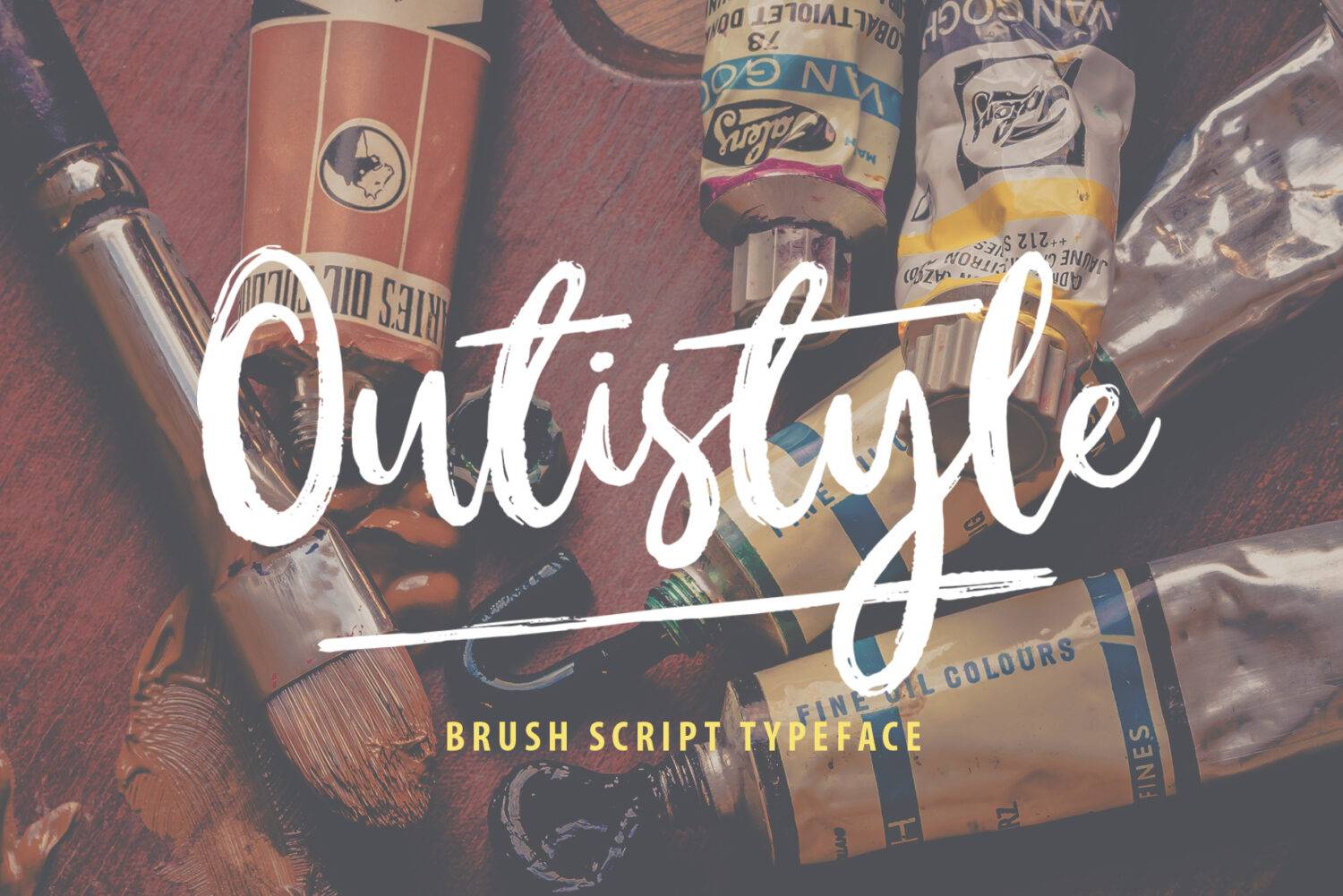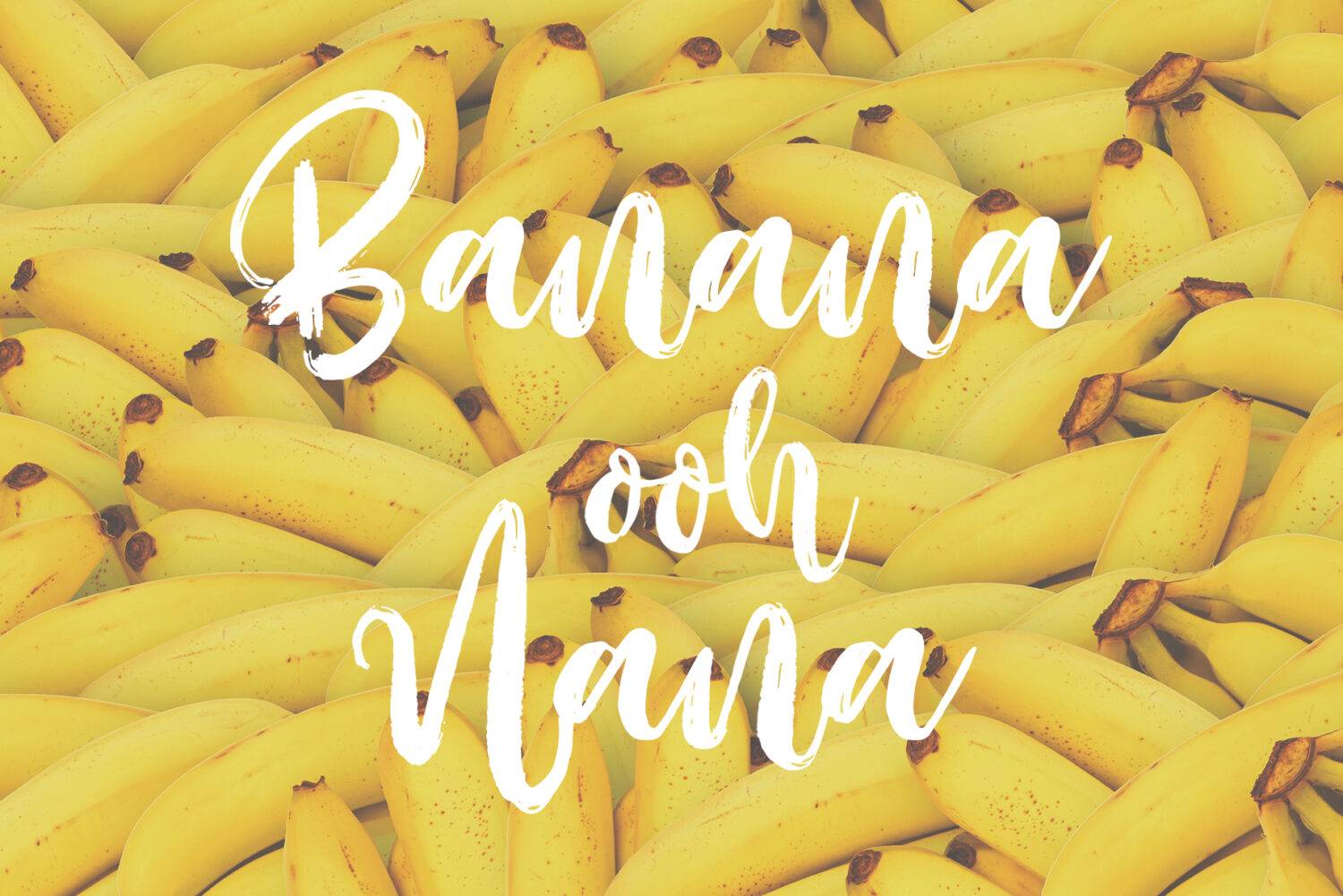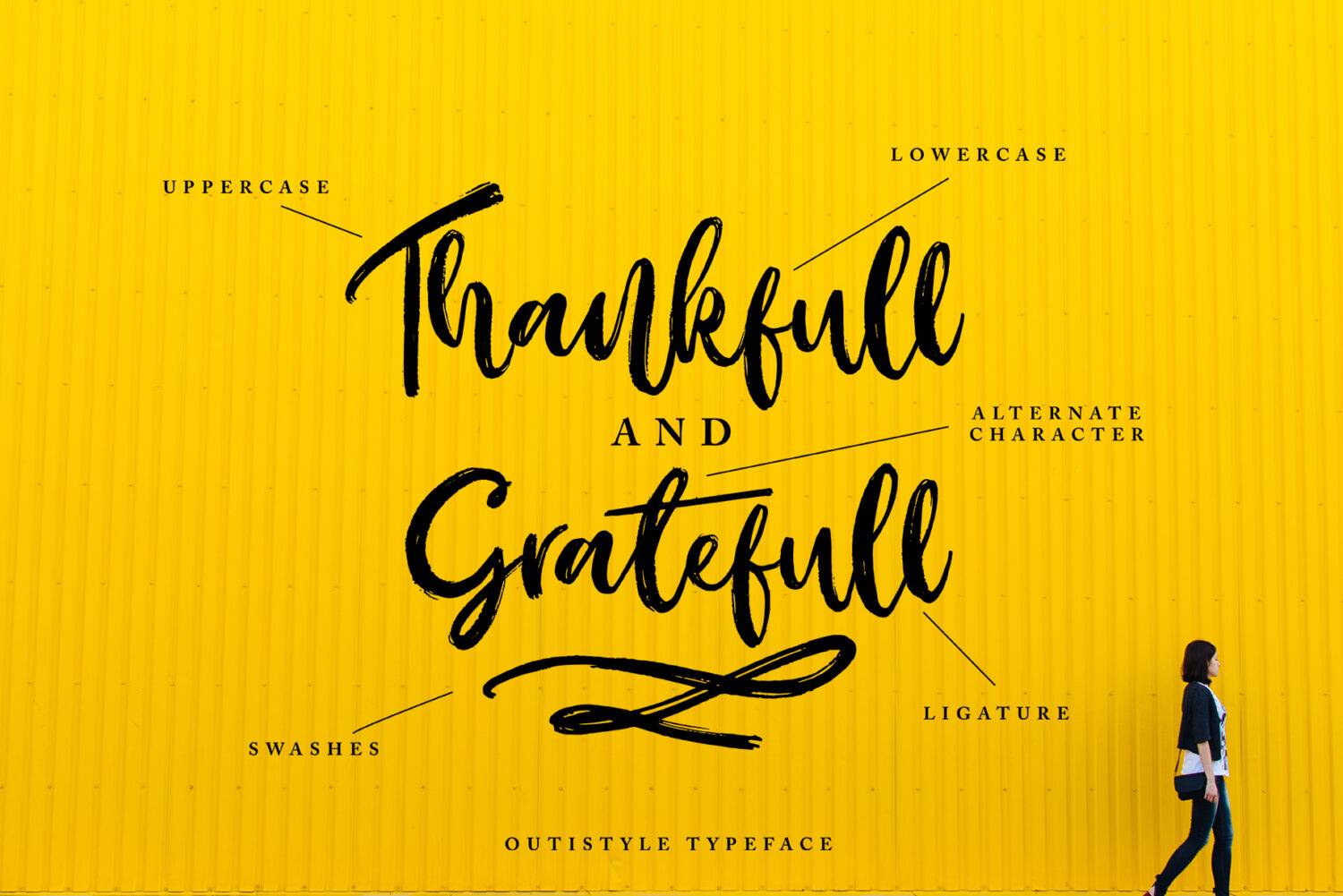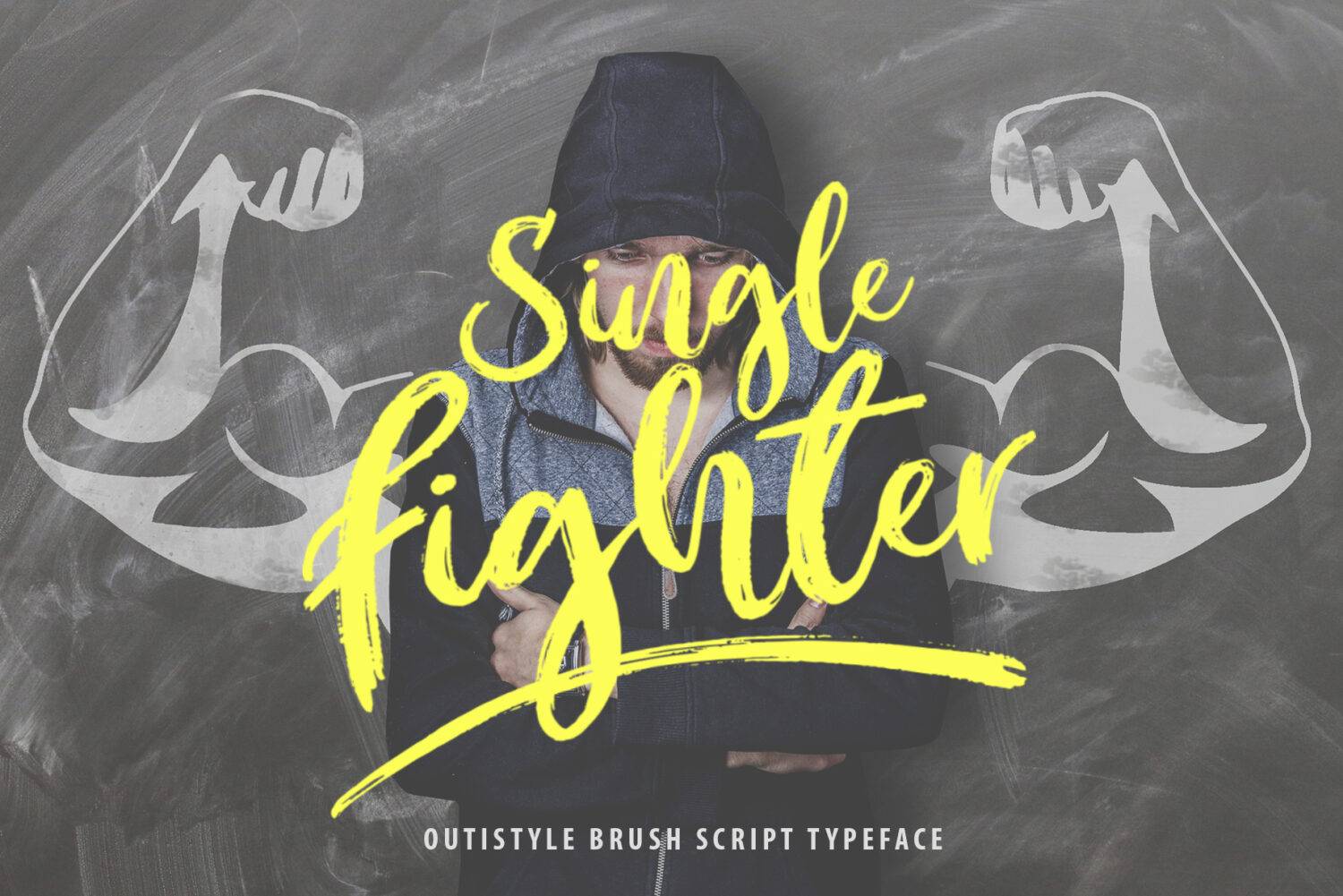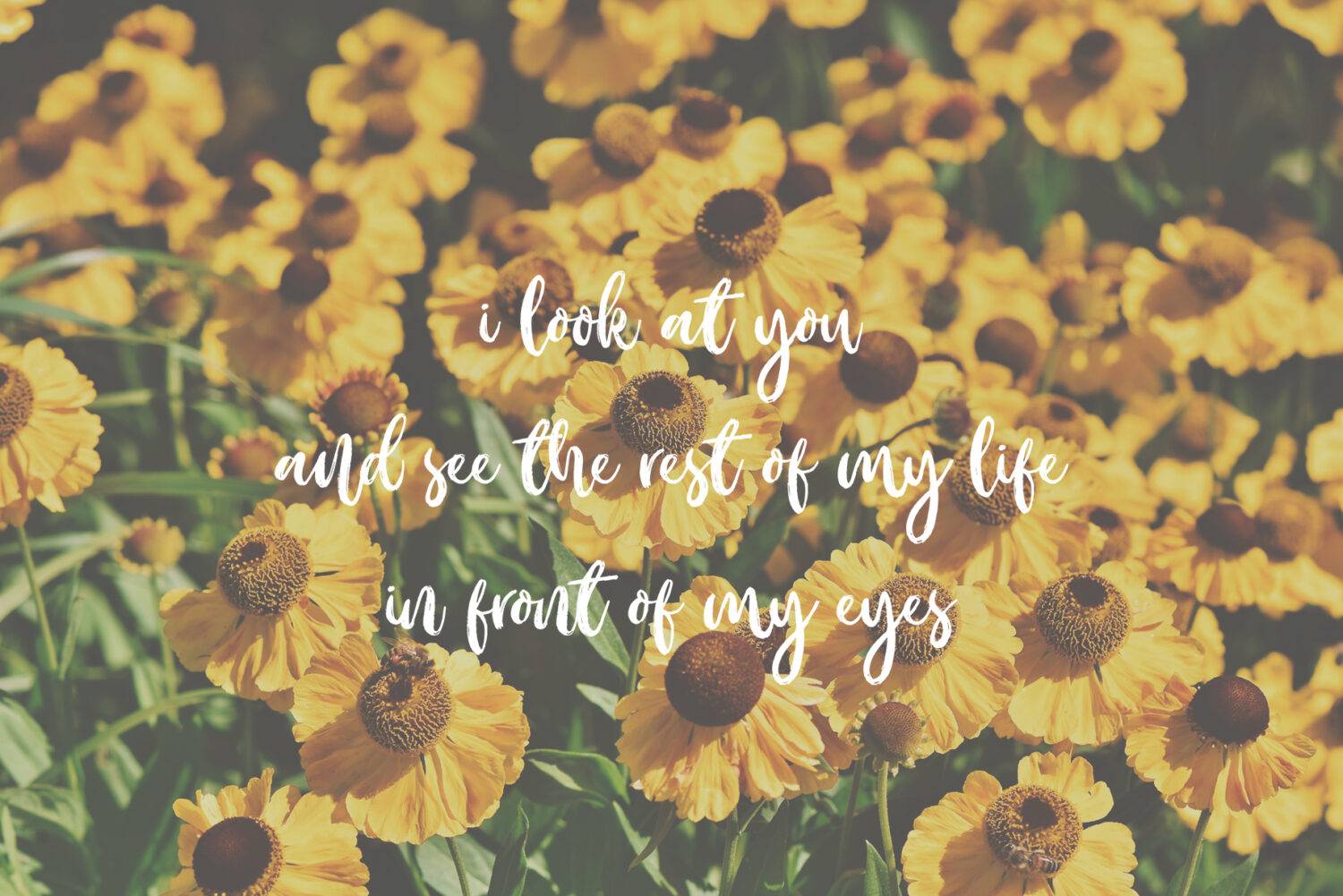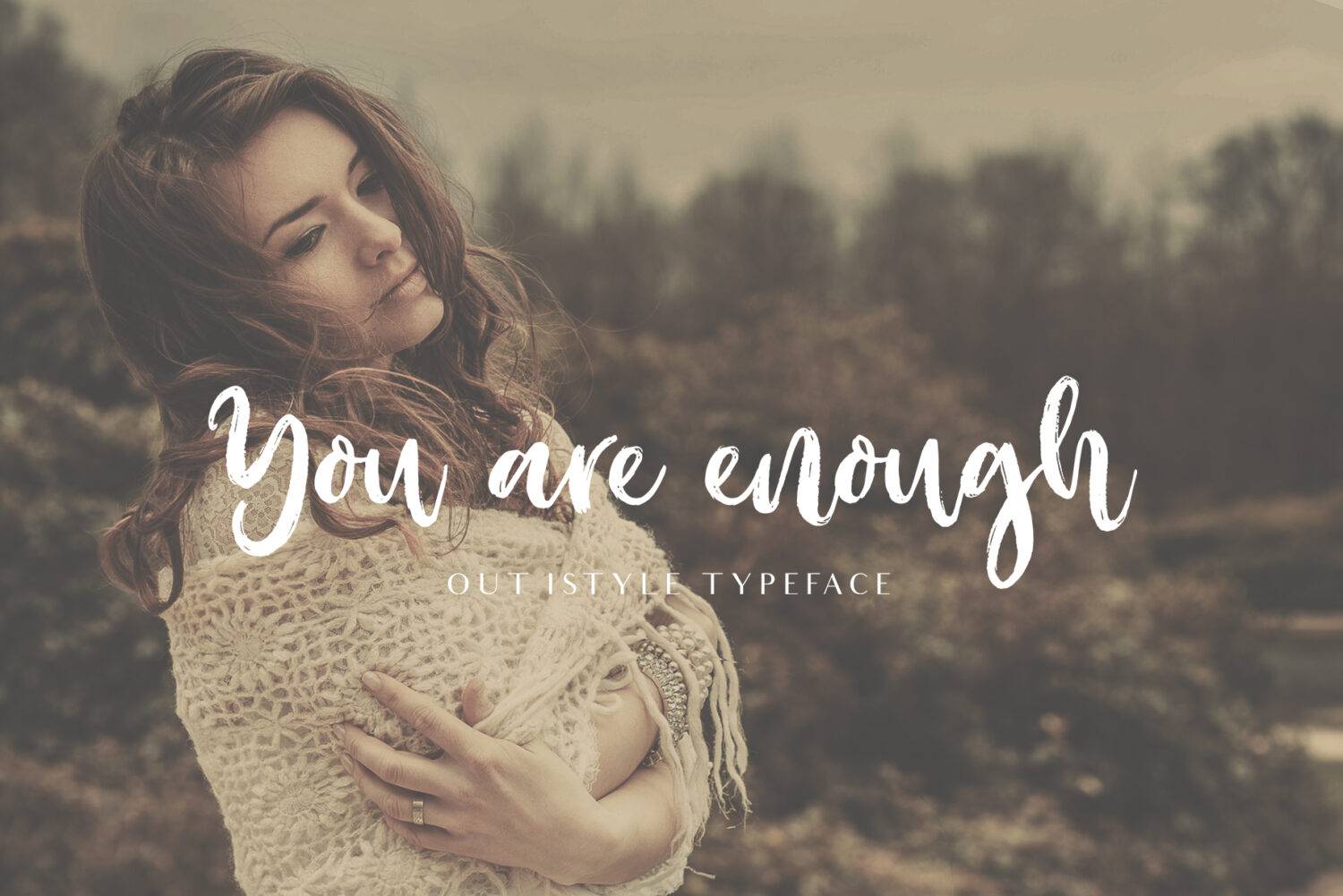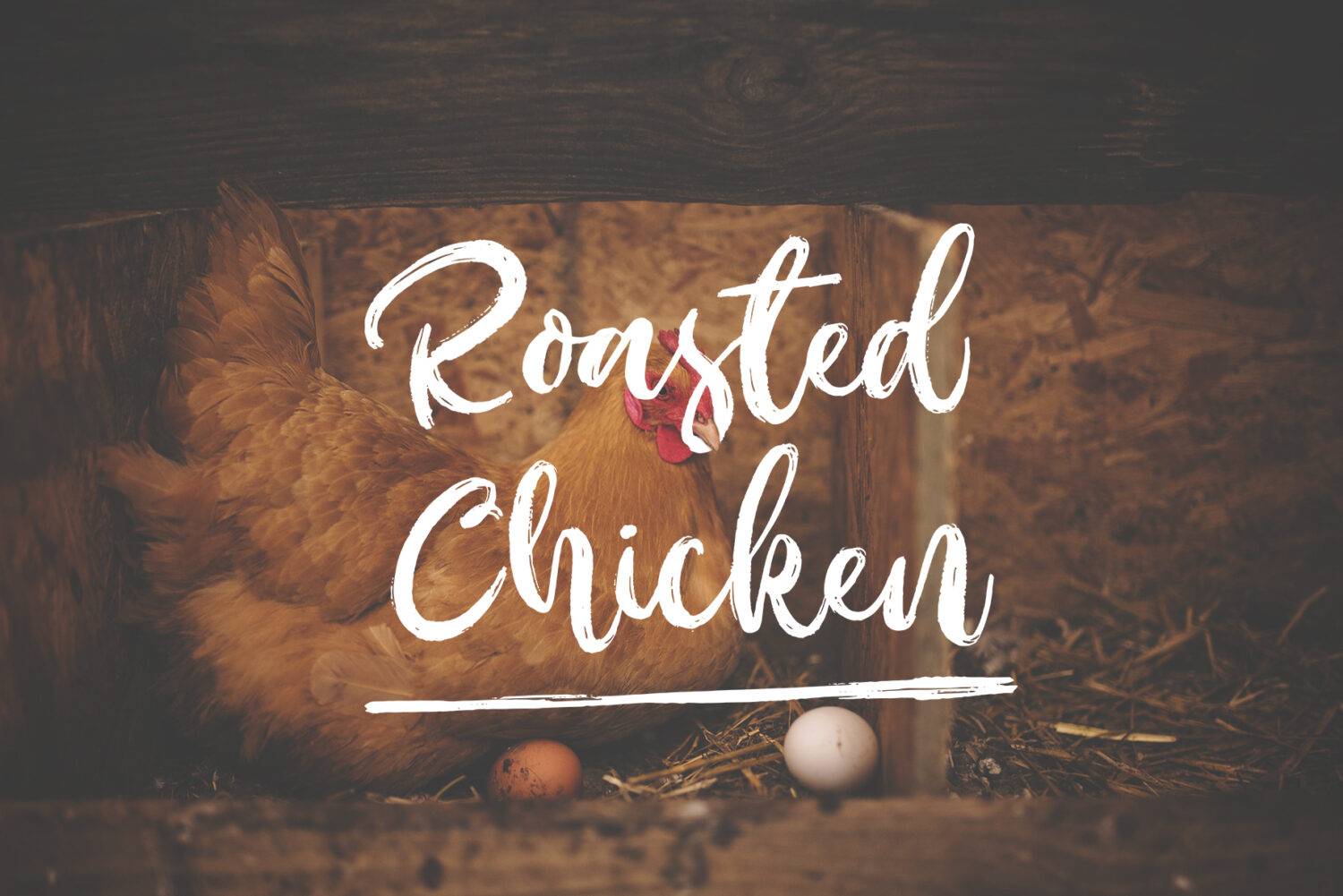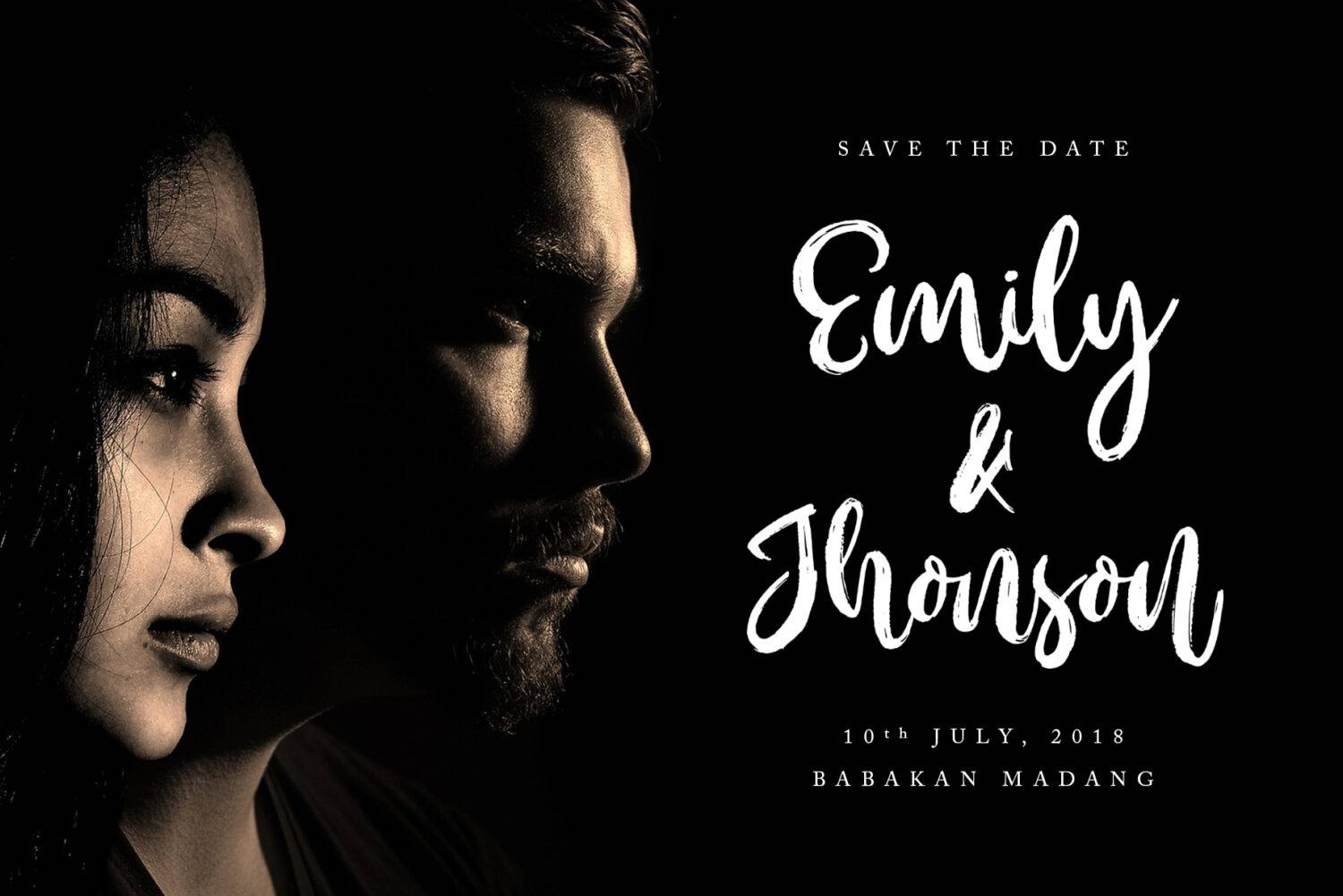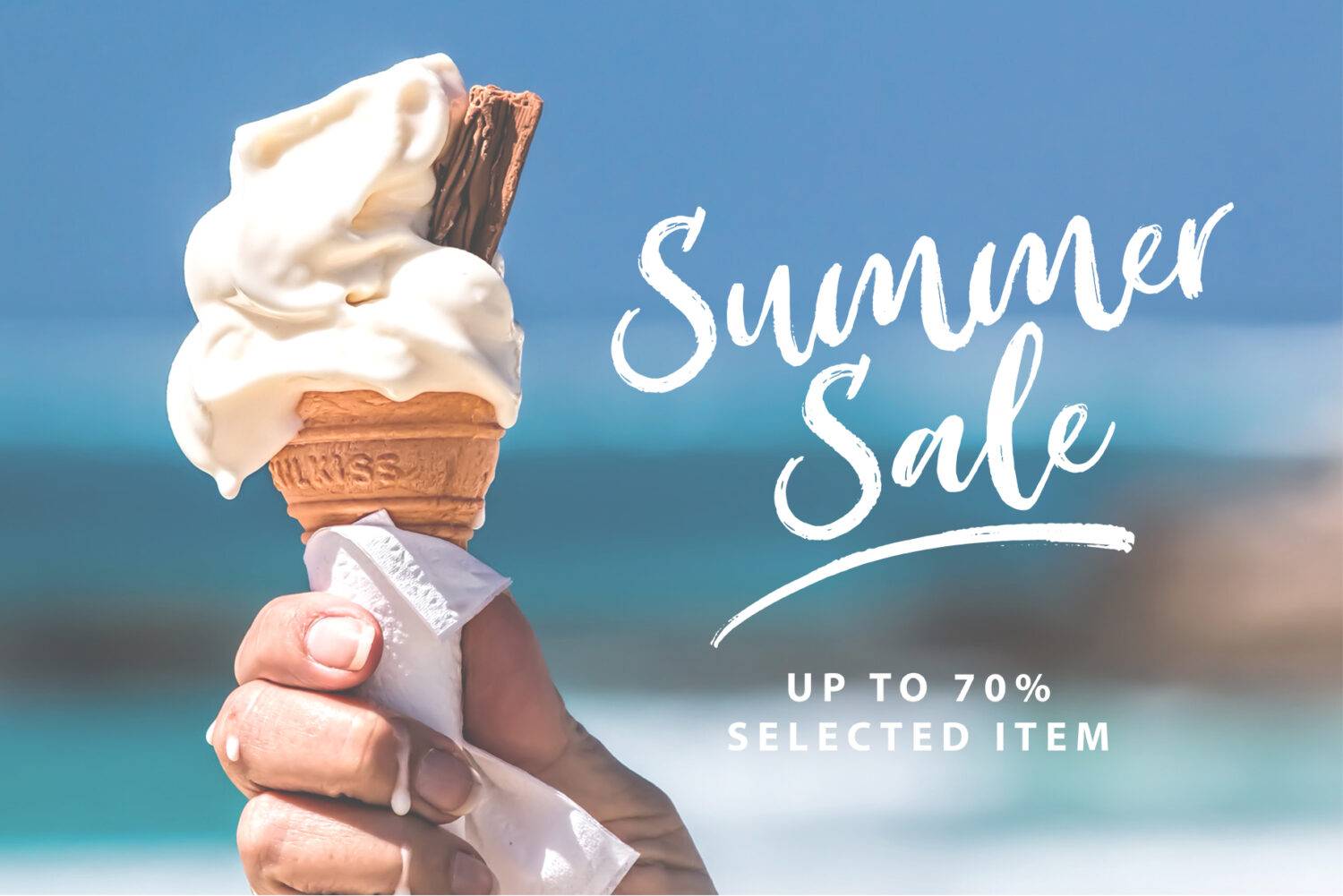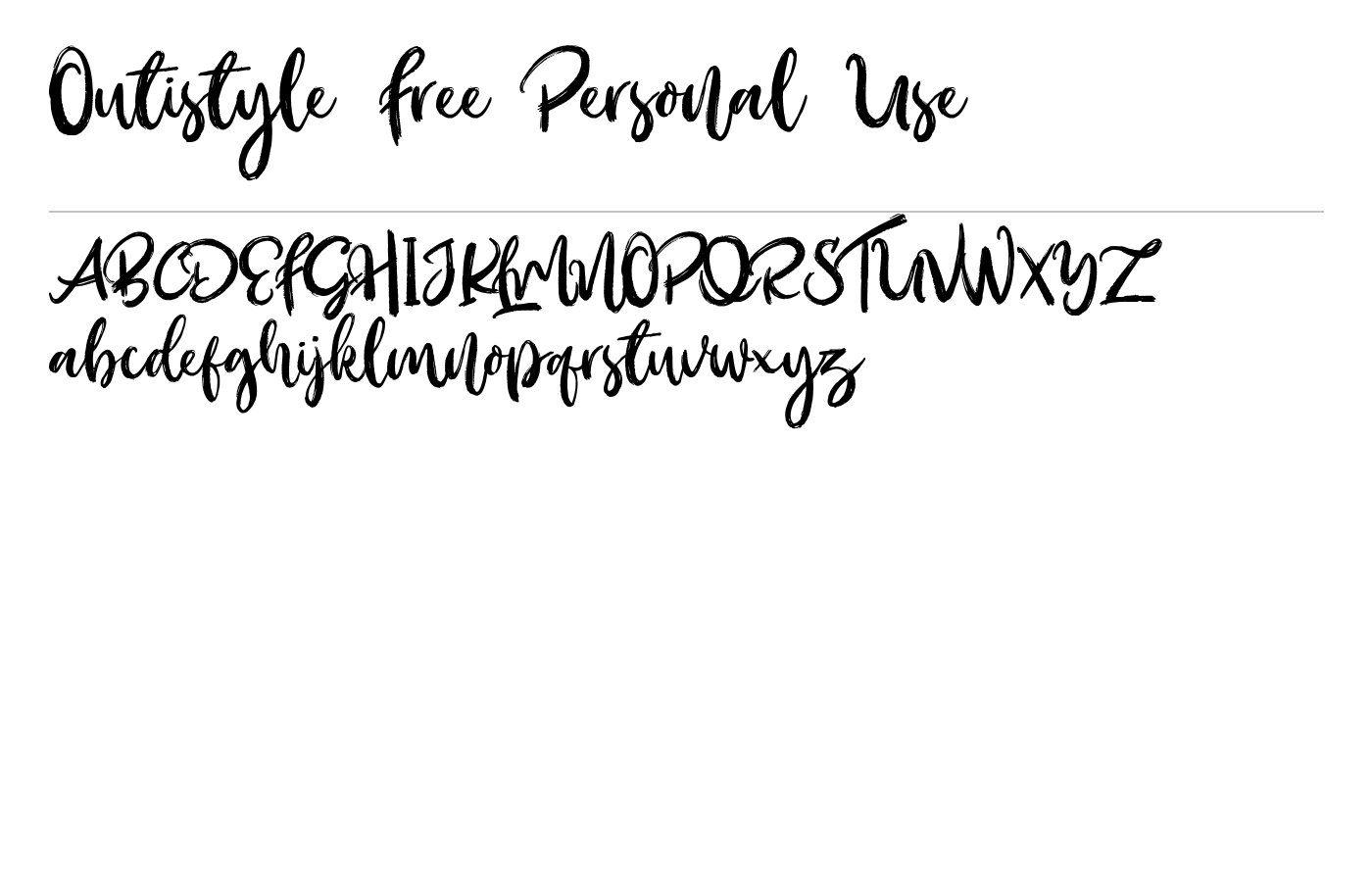
Outistyle is a vibrant handwritten script font with a lively, brush-painted texture that gives it an authentic, artistic feel. Its fluid strokes and casual yet elegant style make it perfect for personal projects, creative branding, and modern invitations where a warm, approachable vibe is desired. This font works well in designs that aim to feel friendly and expressive while maintaining a stylish, handcrafted charm.
Outistyle Font
About Outistyle Font
| Font family | Outistyle Font |
| Release date | 2018-07-01 |
| Designer | Andika Setiawan |